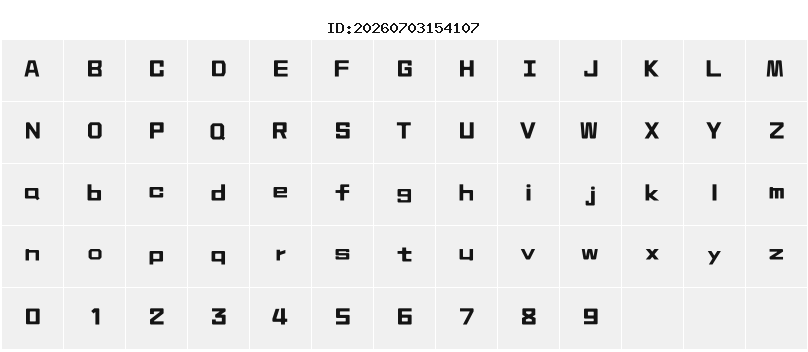
349-上首沙盒体 Preview
About 349-上首沙盒体.ttf
349-上首沙盒体.ttf is a modern, elegant sans-serif font designed for ultimate readability and visual harmony. Perfect for branding, headlines, web design, and print materials.